Want your ads to instantly capture the attention of the elite? Applying the best fonts for ads targeting premium audience is the key to building an exclusive and luxurious impression. Therefore, choosing the right typography must never be done carelessly. Here is how attractive visuals turn simple clicks into lasting loyalty!
Premium brands prioritize elegance over loudness. Through legible type choices, well-spaced layouts, and refined, proportional letterforms, they successfully forge a strong emotional connection by highlighting a sense of exclusivity and a confident identity.
Many world-famous luxury brands rely on the best fonts for ads targeting premium audience. For example, Dior uses elegant serifs to show timeless fashion, and Rolex combines classic fonts with clean layouts that reflect prestige and reliability. Both show that typography is an important element of premium branding.
In the following, we’ll present 16 fonts that work beautifully for luxury advertisements, branding, packaging, editorials, and social media campaigns.
1. Claritle
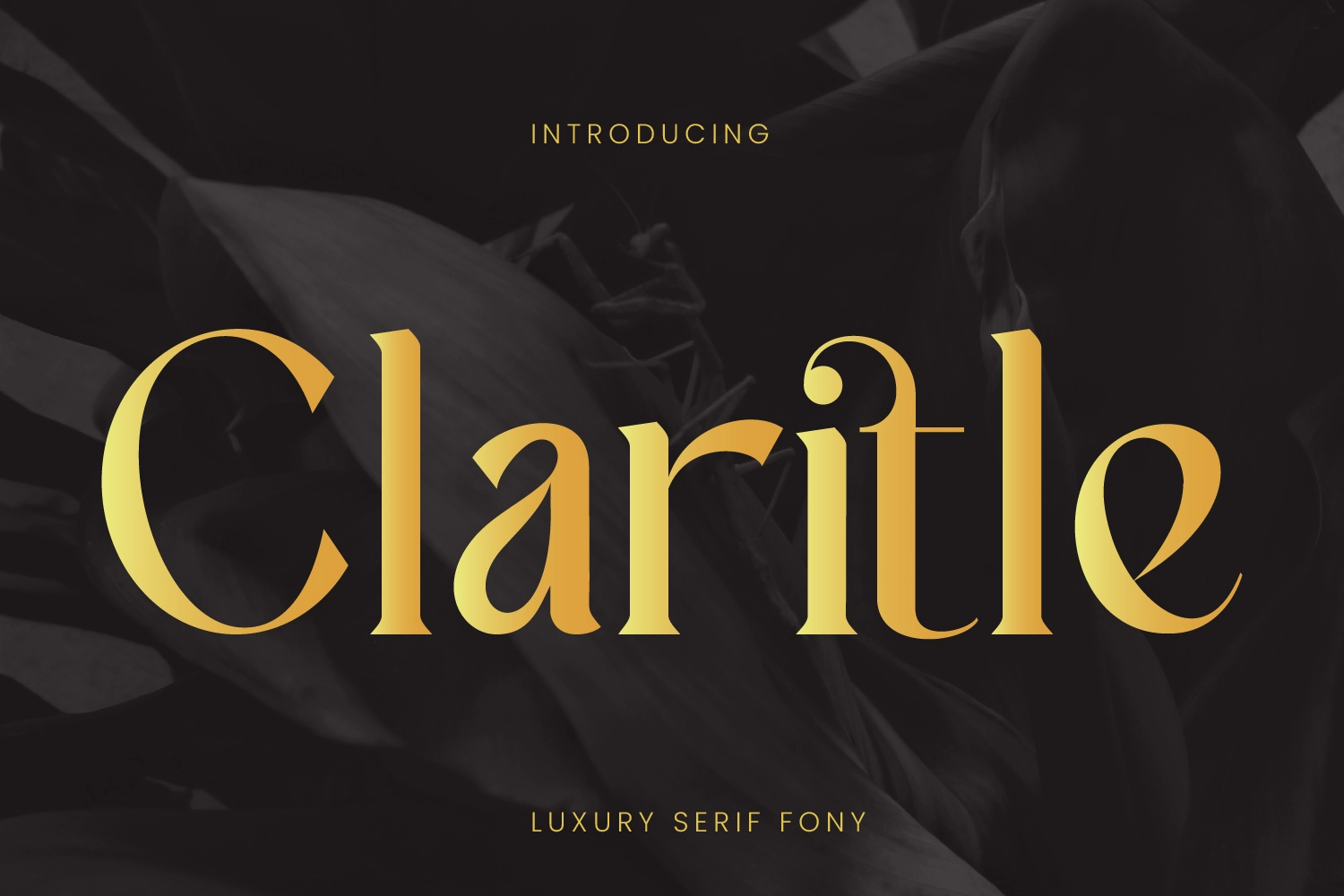
Claritle proves that elegance doesn’t need to be loud to capture attention. Its refined serif details and balanced proportions create a timeless look that’s perfect for luxury fashion campaigns, jewelry branding, premium packaging, and sophisticated editorial advertisements.
2. Bongaty
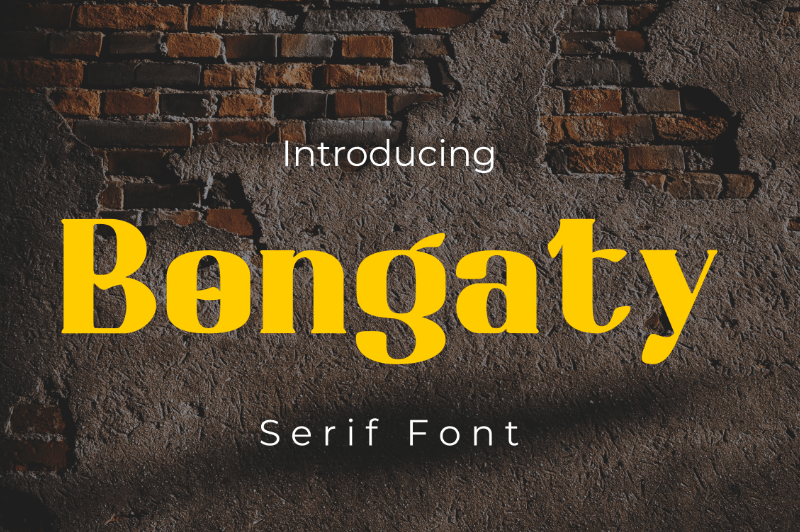
Less can often say more in high-end advertising. That’s exactly where Bongaty shines, offering clean serif letterforms with a contemporary twist that feels equally at home on skincare labels, boutique hotels, premium invitations, and lifestyle magazines.
3. Ravegic
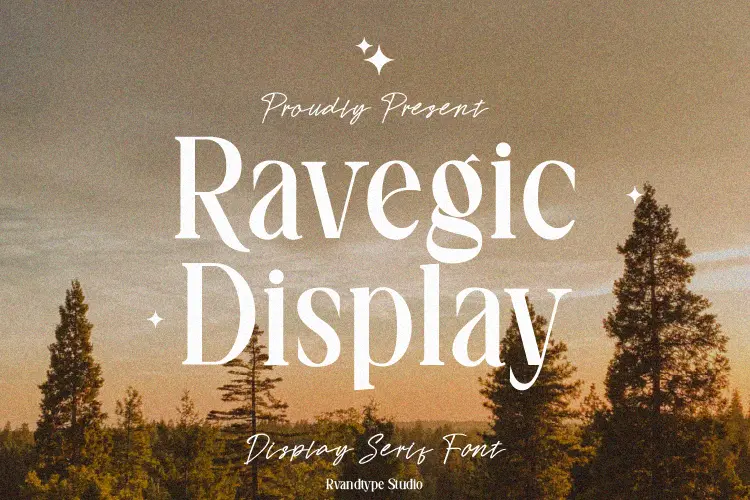
A striking display typeface can become the centerpiece of an advertisement without overpowering the visuals. For designers chasing that refined balance, Ravegic delivers bold elegance that’s great for premium editorials, designer collections, and exclusive product launches.
4. Helonea
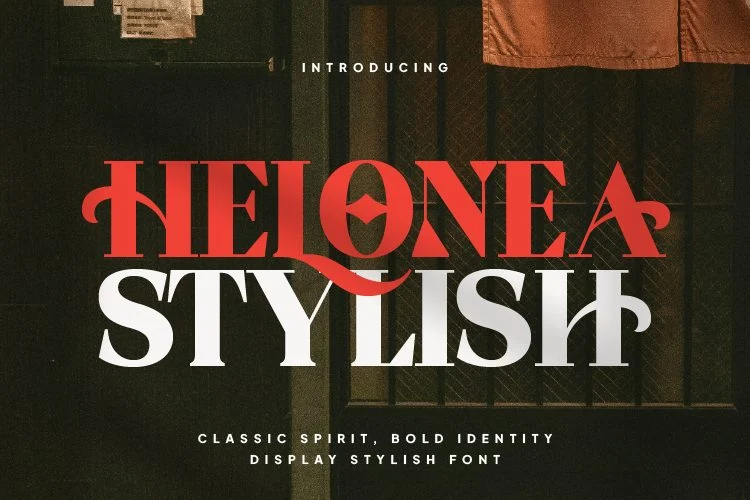
Strong typography can make a brand feel established before customers even read the message. Helonea achieves exactly that through bold yet polished letterforms for luxury real estate, premium cosmetics, and upscale branding.
5. Erione
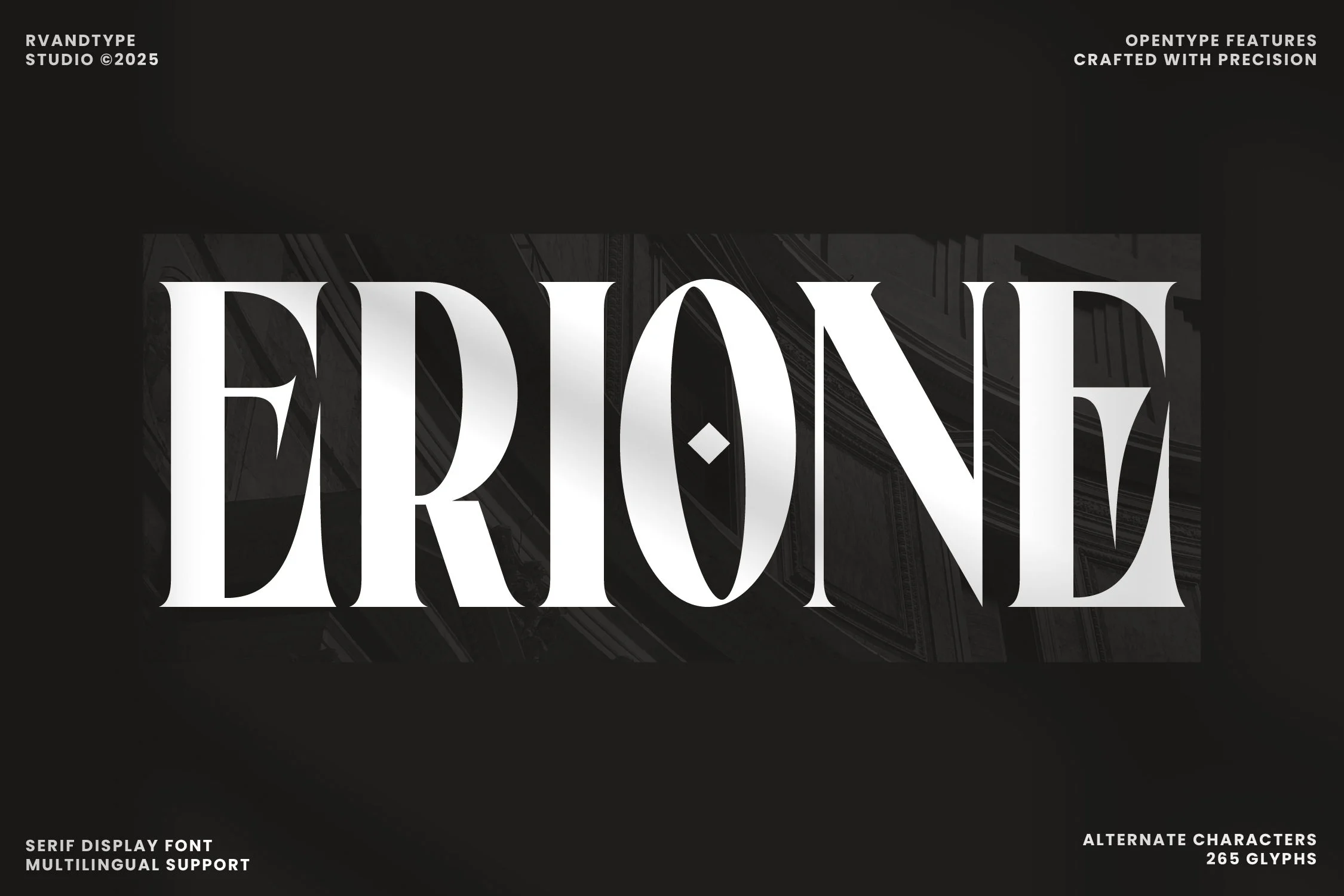
Not every serif font manages to feel both modern and timeless at once. Erione blends powerful strokes with refined details, creating a sophisticated choice for premium business identities, luxury packaging, and high-end advertising materials.
6. Agaleoz
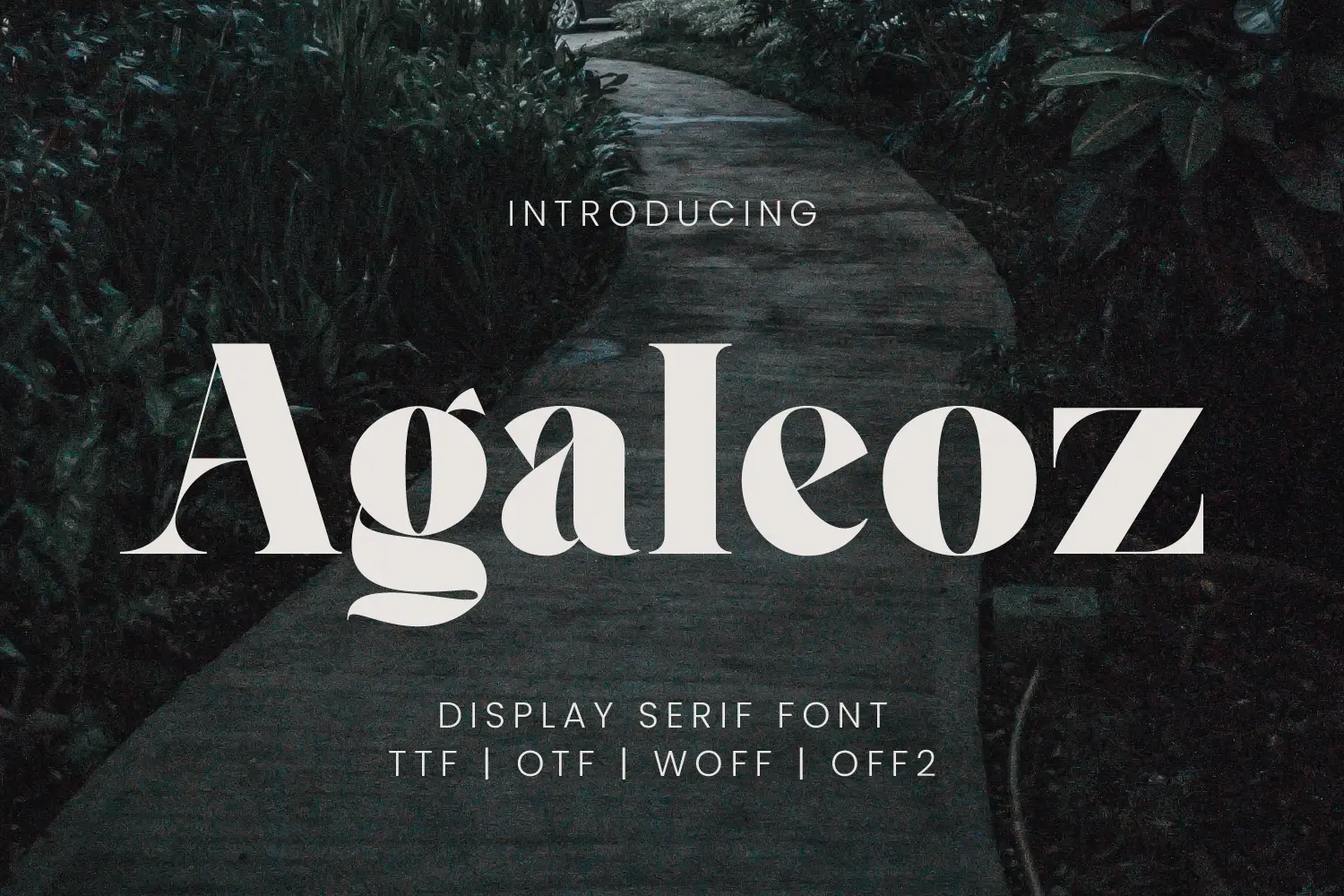
Creative campaigns deserve the best fonts for ads targeting premium audience that feels as memorable as the visuals themselves. That’s exactly what Agaleoz brings to the table by transforming fashion editorials, restaurant branding, and luxury promotions into eye-catching designs.
7. Cavergiz
Classic serif fonts continue to dominate luxury branding because they never feel outdated. With elegant proportions and excellent readability, Cavergiz works beautifully for boutique websites, premium brochures, editorial layouts, and luxury brand identities.
8. Flangen
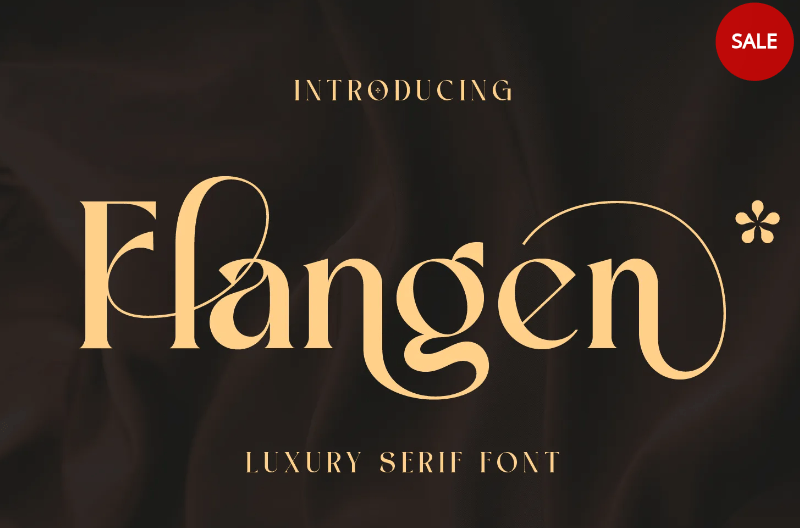
The right typography can make even the simplest advertisement look like it belongs in a fashion magazine. Flangen captures that editorial aesthetic perfectly that makes every campaign feel exclusive and effortlessly luxurious.
9. Effyra
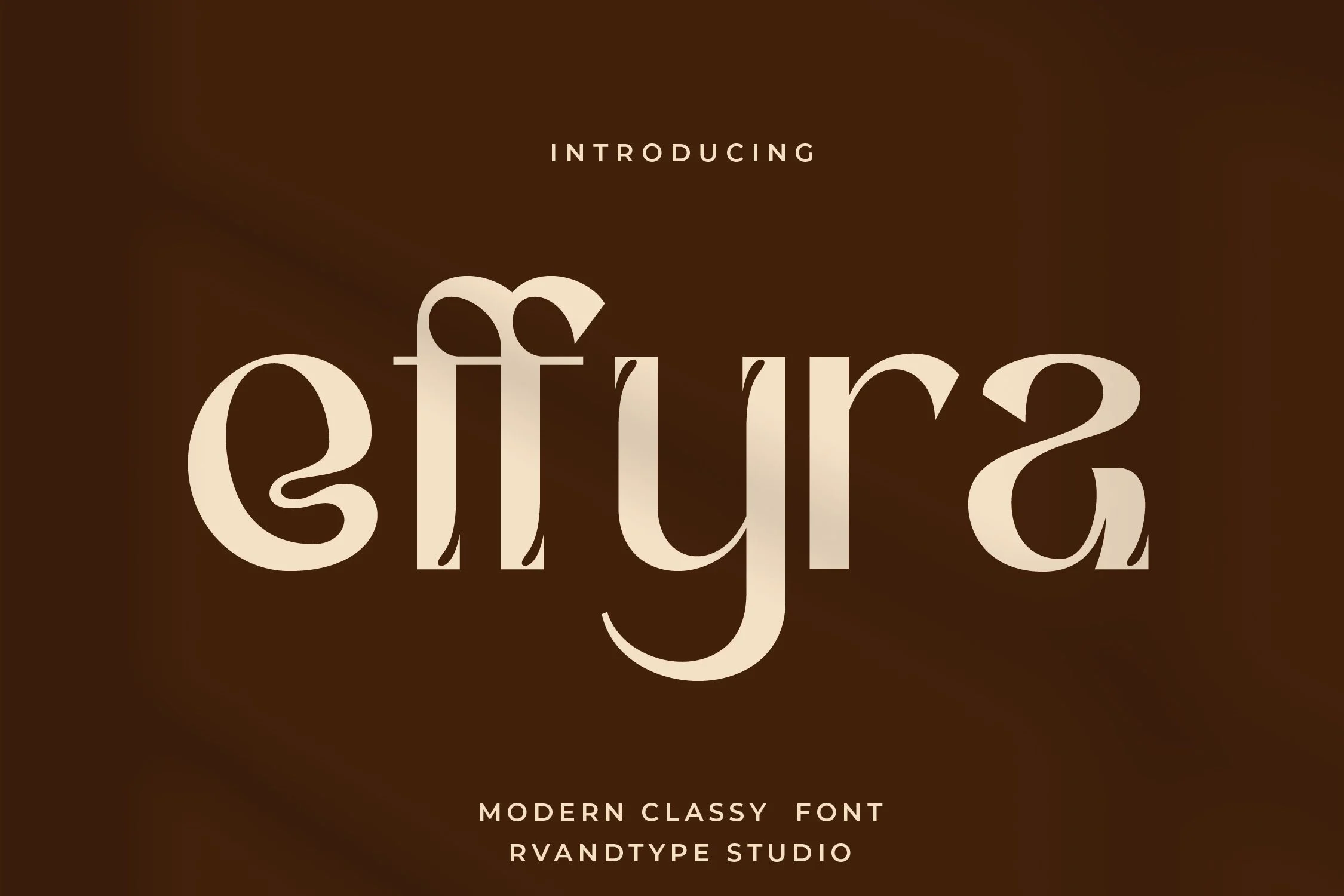
Every premium advertisement deserves typography that reflects quality before a single product is introduced. Effyra offers graceful curves and fashionable styling for beauty brands, luxury accessories, weddings, and boutique promotions.
10. Aver Magera
Some typefaces quietly communicate exclusivity without relying on dramatic details. That’s one of the biggest strengths of Aver Magera, which pairs timeless serif styling with modern simplicity for hotels, jewelry brands, and premium publications.
11. Batfide Signature
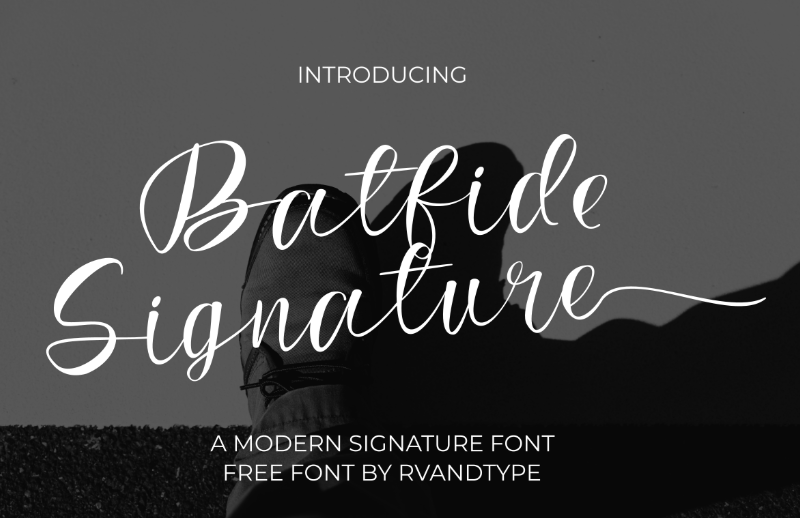
Script typography has a unique way of making premium brands feel exclusive. Designed to capture that distinction, Batfide Signature delivers authentic signature-style lettering that adds a personal and refined touch to custom logos, product labels, or elegant packaging.
Luxury script fonts should look effortless rather than exaggerated to make the design remain elegant. Havergie achieves this balance with flowing handwritten characters that beautifully complement invitations, cosmetics, boutique branding, and premium packaging.
Bold headlines deserve typography that attracts attention while maintaining a sophisticated personality. That’s exactly why Meaglez performs so well across luxury beverages, fashion campaigns, premium editorials, and creative branding projects.
There’s something undeniably premium about typography that feels handcrafted instead of machine-made. Blusbow delivers expressive handwritten details that elevate artisan brands, exclusive stationery, fashion labels, and luxury promotional materials.
Your advertisements can create the luxurious first impression that inspires audiences to stop, admire, and engage with your brand by pairing the right typography with thoughtful design and consistent branding.